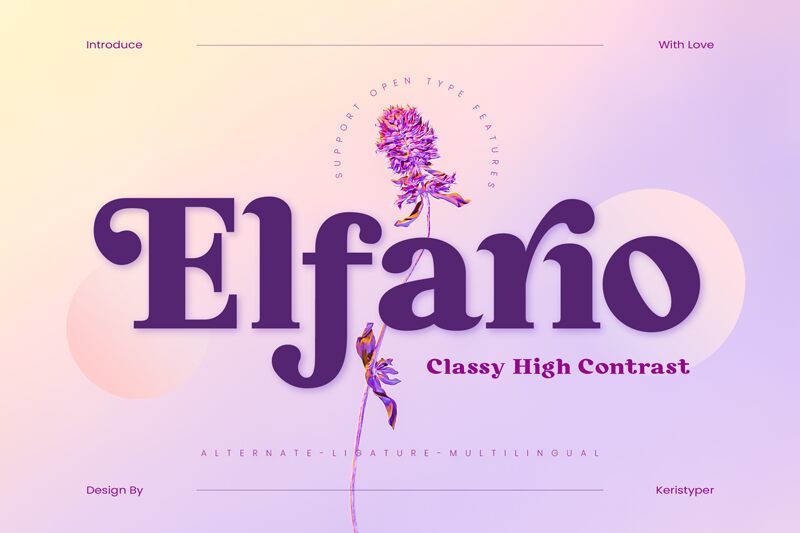
Elfario Regular
Elfario font by Tezar Tantular is a free bold serif font with an elegant, distinctive, and vintage-influenced style. This sophisticated letter style looks incredibly refined in all of its applications imagined today. Including a timeless appeal also means the typeface has a high likelihood of looking exciting for decades forward.
Feel free to use this font in magazines, books, brochures, typography posters or social media posts, product branding, packaging designs such as a perfume container or box.